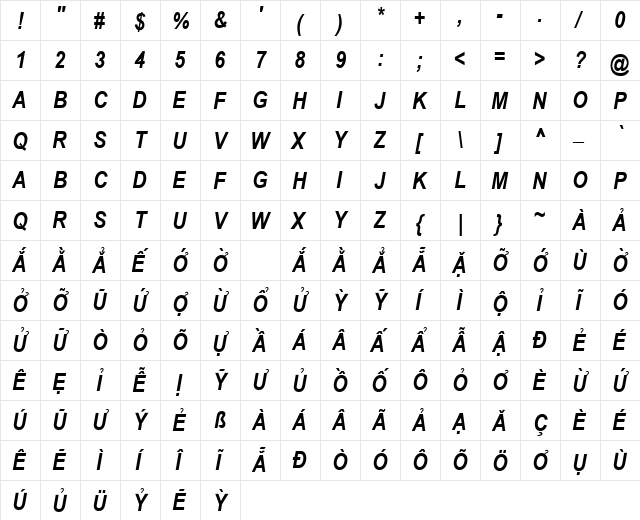
VPS Pleiku Hoa Bold Italic
Design Context for VPS Pleiku Hoa Typeface
VPS Pleiku Hoa takes a measured approach to typography — its balanced proportions and neutral character make it a reliable workhorse for both digital and print work. Its italic angle brings a sense of urgency and motion to the letterforms. Its bold stroke weight gives it real presence on the page.
Pro Tip: Try VPS Pleiku Hoa for annotation and caption copy alongside an upright companion — the contrast in angle creates a dynamic but ordered typographic system.